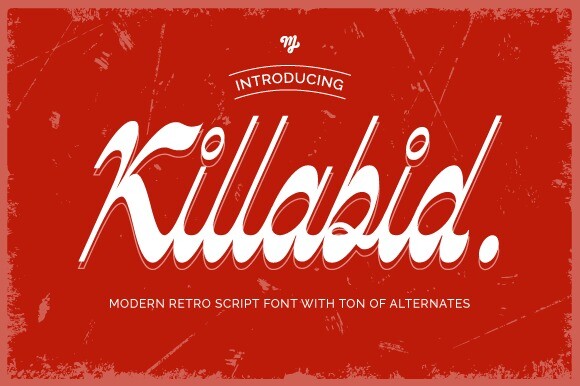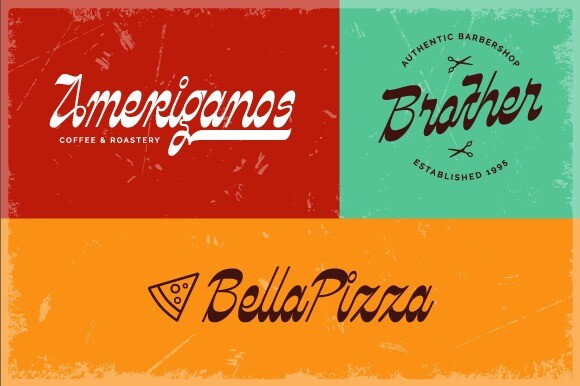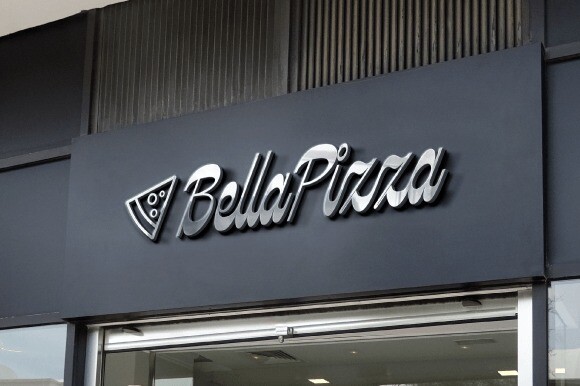
Killabid Font
Killabid is a modern retro script font. It is a unique reversed contrast typeface with alternates and ligatures. Killabid is perfect for any design purpose such as branding, crafting, and more. This font is PUA encoded which means you can access all features with ease!